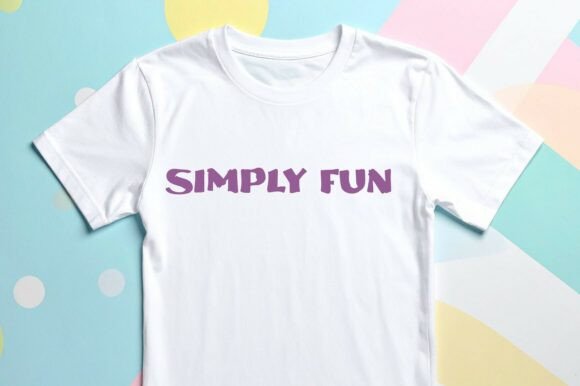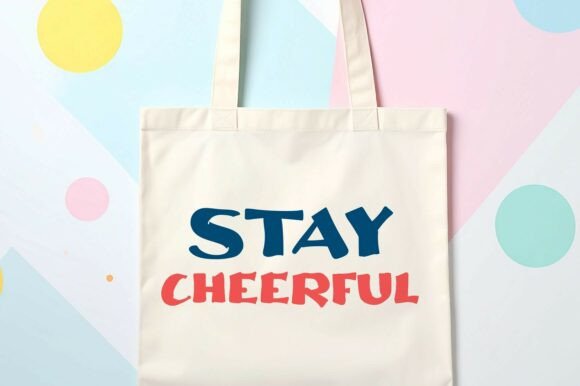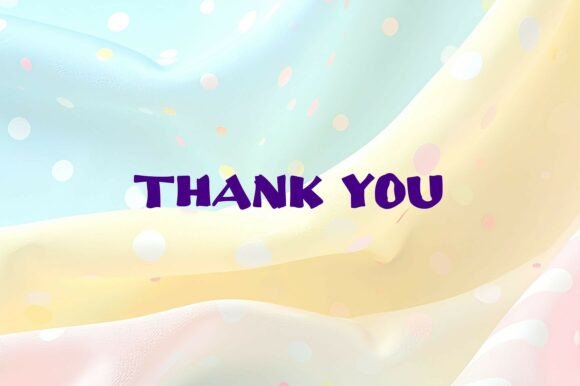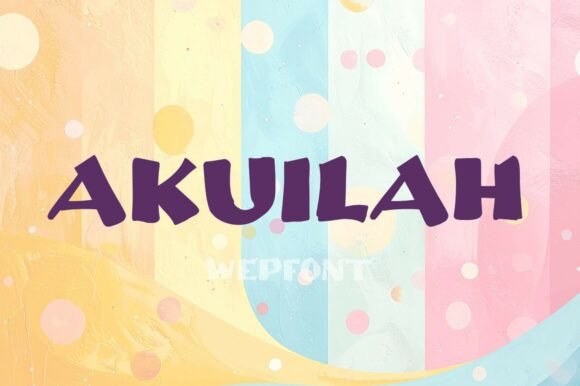
Akuilah Font: The Ultimate Display Font for Creative Projects
In the world of typography, fonts play a crucial role in conveying the tone and personality of a design. If you’re looking for a font that can add a touch of fun, energy, and playfulness to your creative projects, look no further than Akuilah Font. This vibrant and modern display font is designed to bring a unique blend of casual appeal and impactful presence to your designs, making it incredibly versatile for a wide range of applications.
The Distinctive Character of Akuilah
Akuilah Font boasts a bold, hand-drawn aesthetic with slightly irregular strokes, capturing the spontaneous charm of a casual brush script while maintaining excellent legibility. Its distinctive playful character makes it stand out from other fonts, adding a human touch to digital and print designs. Whether you’re working on a children’s product, a casual event, or a lively social media graphic, Akuilah is the perfect choice to evoke joy, excitement, and a friendly vibe.
What Makes Akuilah Special?
So, what sets Akuilah apart from other display fonts? Here are a few key features that make it a top choice for designers and crafters:
- Energetic & Cheerful: Akuilah is perfect for designs that aim to evoke joy, excitement, and a friendly vibe. Its playful character is sure to grab attention and leave a lasting impression.
- Bold & Expressive: With its strong presence, Akuilah ensures your message gets noticed. Whether you’re creating a headline, a logo, or a social media graphic, Akuilah is sure to make a statement.
- Versatile: Akuilah is ideal for various themes, including children’s products, casual events, food and beverage branding, lively social media graphics, and engaging headlines. Its versatility makes it a valuable addition to any designer’s toolkit.
- Hand-crafted feel: Akuilah’s hand-drawn aesthetic adds an authentic, human touch to digital and print designs. This makes it perfect for designers looking to create unique and personalized designs that stand out from the crowd.
Why Choose Akuilah?
If you’re looking for a font that can add a touch of personality to your designs, Akuilah is the perfect choice. Here are a few reasons why:
- Unique blend of casual appeal and impactful presence: Akuilah offers a unique combination of playfulness and legibility, making it perfect for a wide range of applications.
- Easy to read: Despite its bold and playful character, Akuilah remains easy to read, even at smaller sizes.
- Customizable: Akuilah’s hand-drawn aesthetic makes it easy to customize and adapt to your design needs.
Who is Akuilah Designed for?
Akuilah is designed for creators looking to inject a dose of fun and personality into their designs. This includes:
- Graphic designers: Akuilah is perfect for graphic designers looking to create unique and eye-catching designs for their clients.
- Illustrators: Akuilah’s playful character makes it a great choice for illustrators looking to add a touch of personality to their artwork.
- Crafters: Akuilah is also perfect for crafters looking to create handmade products with a personal touch.
- Social media enthusiasts: Akuilah’s bold and expressive character makes it perfect for creating engaging social media graphics.
In conclusion, Akuilah Font is a vibrant and modern display font that is sure to bring a touch of fun and personality to your creative projects. Its distinctive playful character, bold and expressive aesthetic, and versatile nature make it a valuable addition to any designer’s toolkit. Whether you’re working on a children’s product, a casual event, or a lively social media graphic, Akuilah is the perfect choice to evoke joy, excitement, and a friendly vibe. So why choose Akuilah? With its unique blend of casual appeal and impactful presence, Akuilah is the ultimate display font for creative projects.